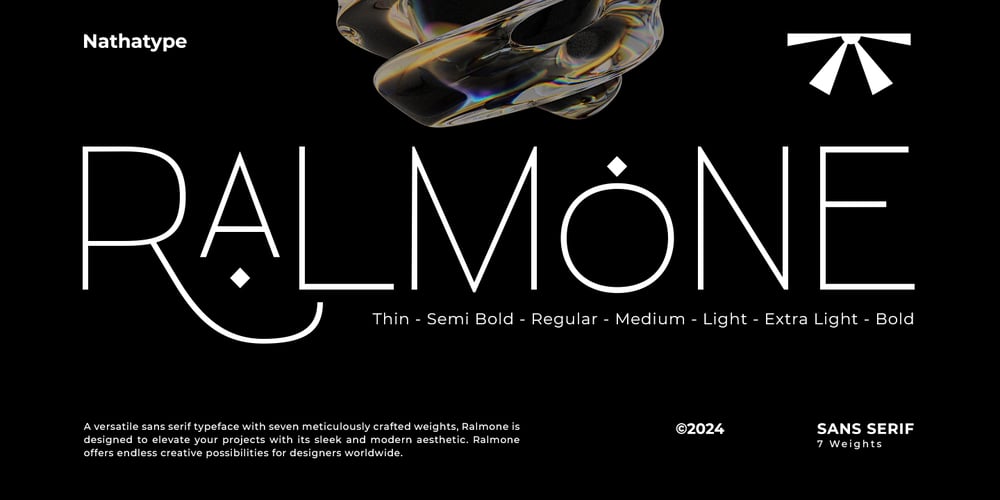
Ralmone Font Family was designed by Donis Miftahudin and published by Nathatype. Ralmone contains 7 styles and family package options. Ralmone is a versatile sans serif font family designed to offer a wide range of typographic possibilities. Crafted exclusively in uppercase, Ralmone exudes a sense of modernity and strength. With seven font weight choices available, ranging from Thin to Bold, Ralmone provides designers with the flexibility to create impactful compositions.The clean lines and balanced proportions of Ralmone ensure clarity and readability across all weights, making it suitable for both print and digital media. In addition, enjoy the features here.Features: Multilingual Supports PUA Encoded Numerals and Punctuations Ralmone fits in headlines, logos, posters, flyers, branding materials, greeting cards, print media, editorial layouts, and many more designs. Find out more ways to use this font by taking a look at the font preview.Thanks for purchasing our fonts. Hopefully, you have a great time using our font. Feel free to contact us anytime for further information or when you have trouble with the font. Thanks a lot and happy designing.